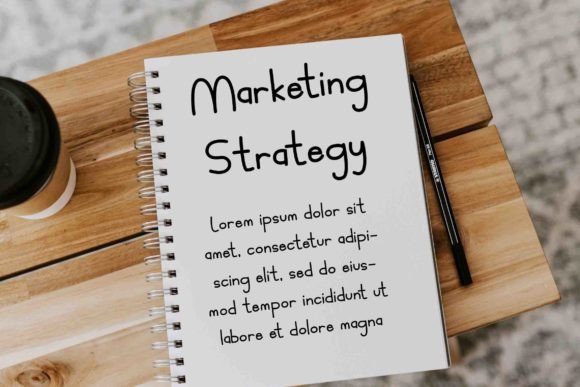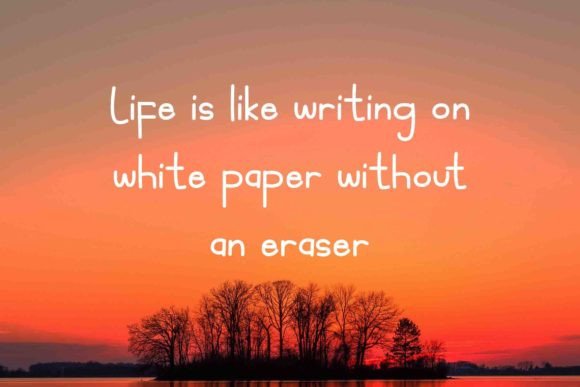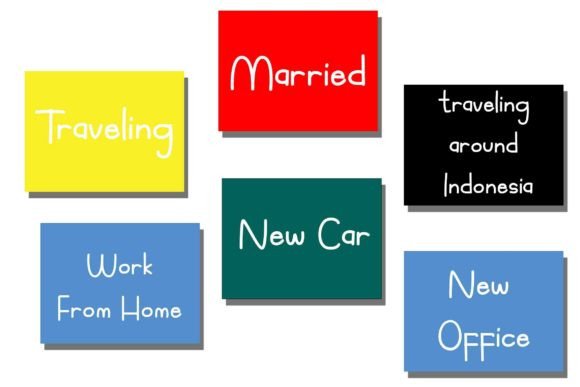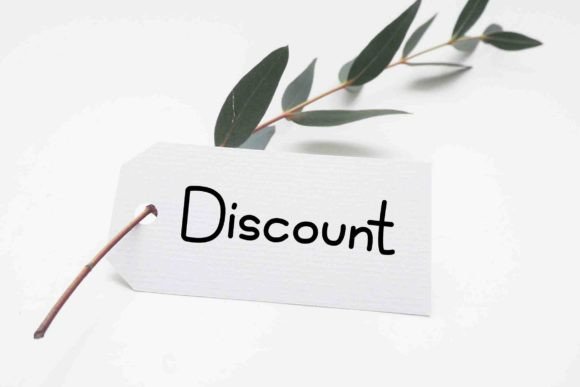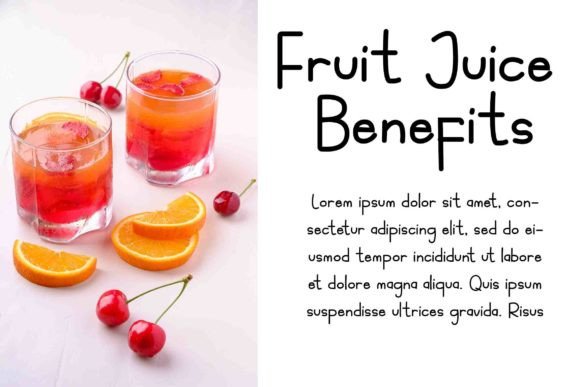
Introducing Digital Marketing Font: The Perfect Addition to Your Creative Projects
Are you a designer, crafter, or social media enthusiast looking for a unique and stylish font to elevate your creative projects? Look no further than Digital Marketing Font! This delightful, childish handwritten font is designed to add a cheerful touch to your crafts, making it ideal for a wide range of applications, from greeting cards and social media posts to blog headers and more.
What is Digital Marketing Font?
Digital Marketing Font is a carefully crafted, handwritten font that exudes a sense of playfulness and friendliness. Its simple, yet stylish design makes it perfect for adding a personal touch to your digital and print projects. Whether you’re creating engaging social media content, designing eye-catching greeting cards, or crafting informative blog posts, this font is sure to make your work stand out.
Key Features of Digital Marketing Font
- Childish Handwritten Style: Digital Marketing Font boasts a charming, handwritten look that’s sure to capture the attention of your audience.
- Simple and Easy to Read: Despite its playful design, this font remains clear and easy to read, making it perfect for use in a variety of contexts.
- Versatile: From social media posts and greeting cards to blog headers and more, Digital Marketing Font can be used in a wide range of creative projects.
- Stylish and Cheerful: Add a touch of personality to your work with this delightful font that’s sure to bring a smile to your audience’s faces.
Uses for Digital Marketing Font
Digital Marketing Font is incredibly versatile, making it suitable for a variety of applications. Here are just a few ideas to get you started:
- Social Media Posts: Elevate your social media game with eye-catching posts that showcase your brand’s personality.
- Greeting Cards: Create personalized, stylish greeting cards for special occasions that will leave a lasting impression.
- Blog Headers: Add a touch of whimsy to your blog headers and make your content stand out from the crowd.
- Crafts: Use Digital Marketing Font to add a personal touch to your crafts, such as handmade jewelry, decorations, or gift tags.
Why Choose Digital Marketing Font?
With so many fonts available, why choose Digital Marketing Font? Here are just a few reasons why this font stands out from the rest:
- Unique and Playful Design: Digital Marketing Font offers a fresh, playful take on traditional fonts, making it perfect for creative projects.
- Easily Readable: Despite its stylish design, this font remains easy to read, ensuring your message gets across clearly.
- Highly Versatile: Use Digital Marketing Font in a wide range of projects, from digital content to print materials.
Digital Marketing Font is a delightful, childish handwritten font that’s perfect for adding a stylish and cheerful touch to your creative projects. With its simple, yet stylish design, this font is ideal for designers, crafters, and social media enthusiasts looking to elevate their work. Whether you’re creating social media posts, greeting cards, blog headers, or more, Digital Marketing Font is sure to bring a touch of personality and whimsy to your crafts.